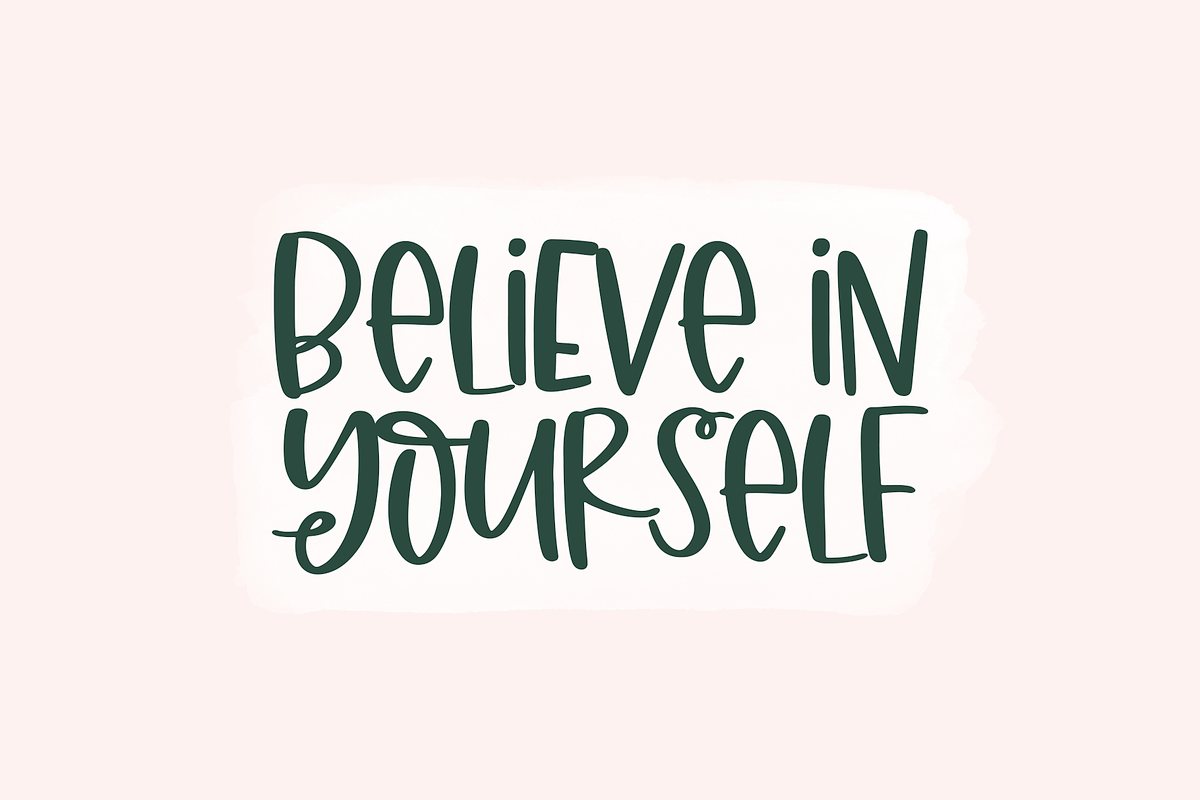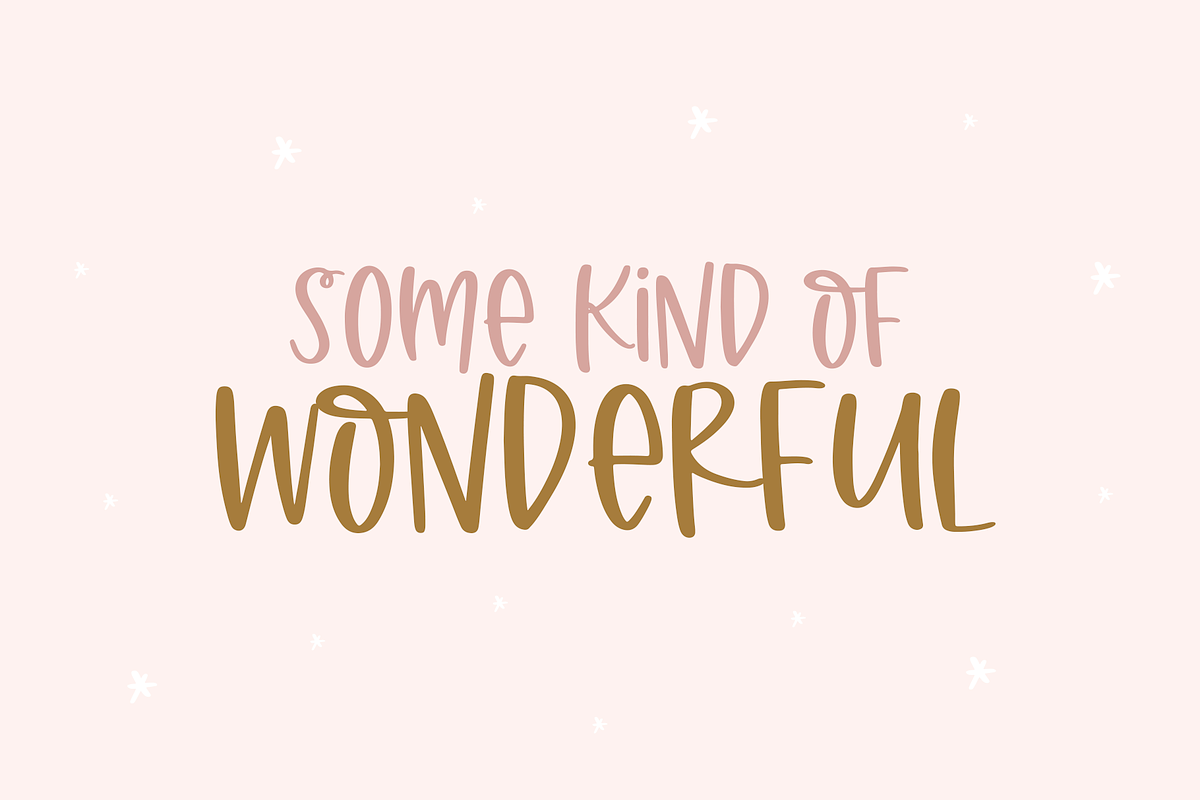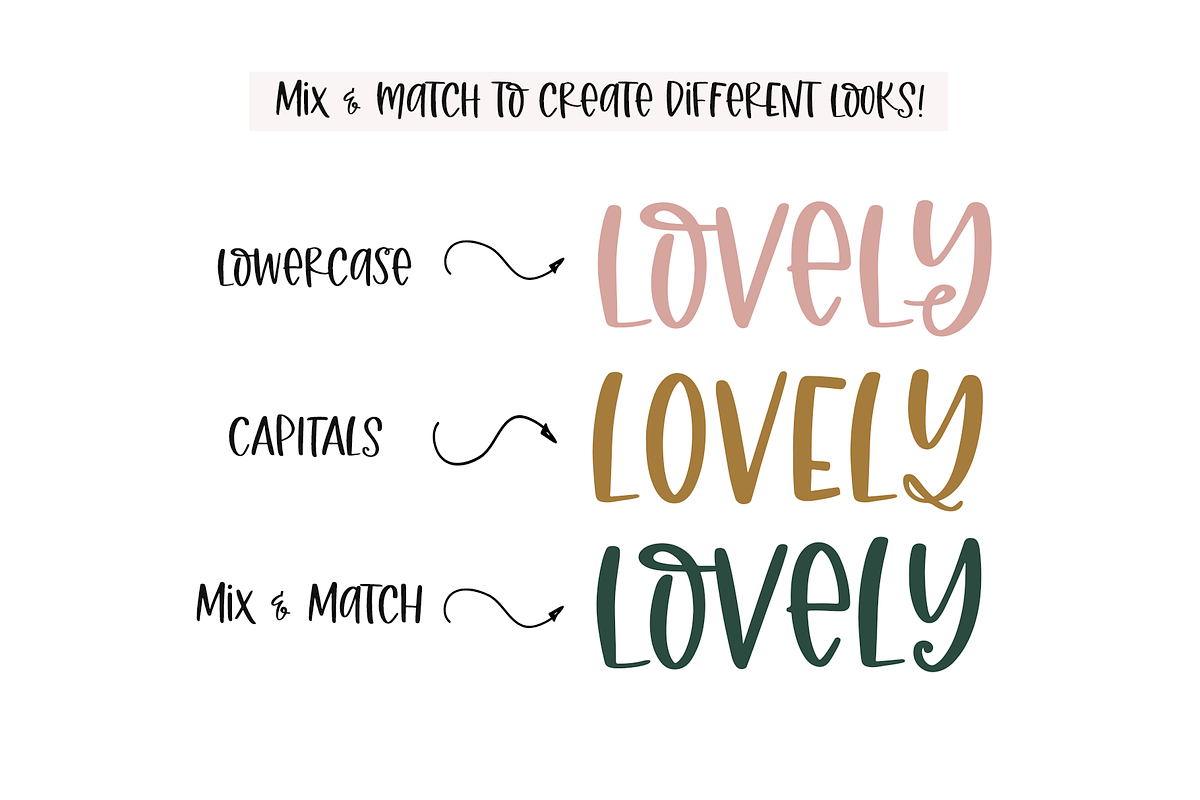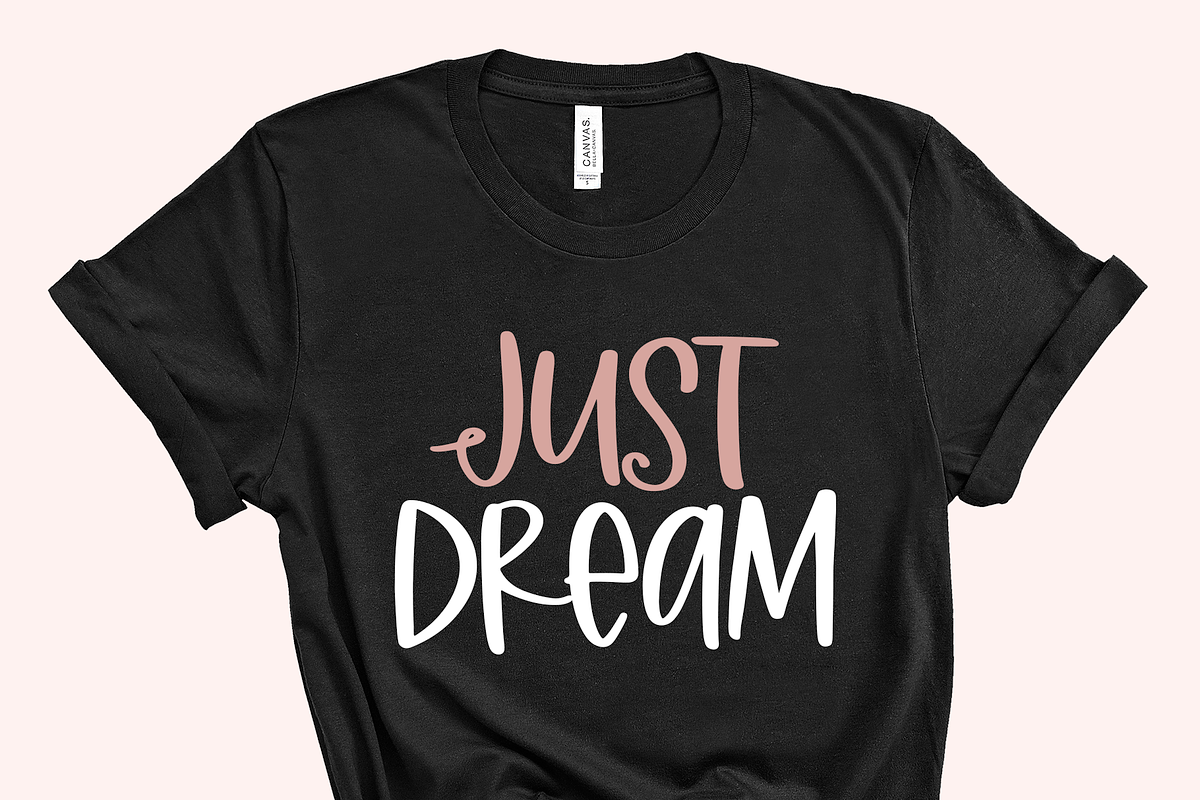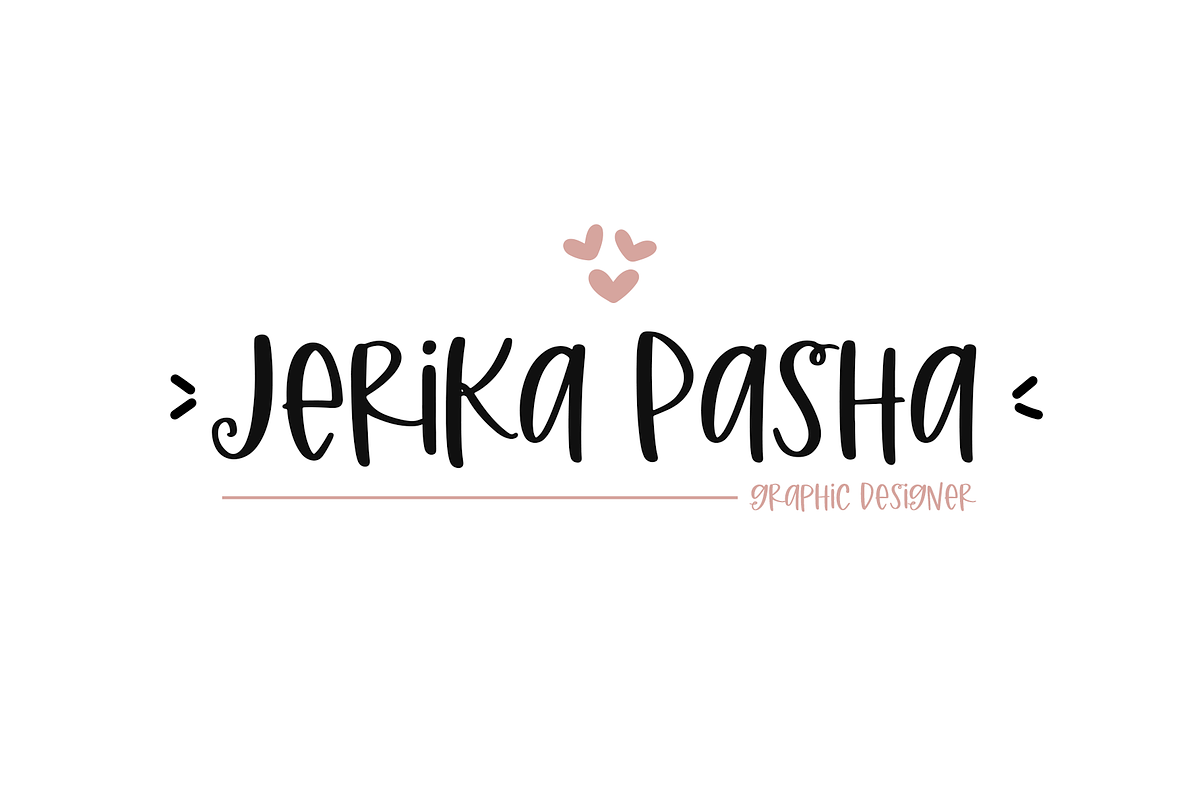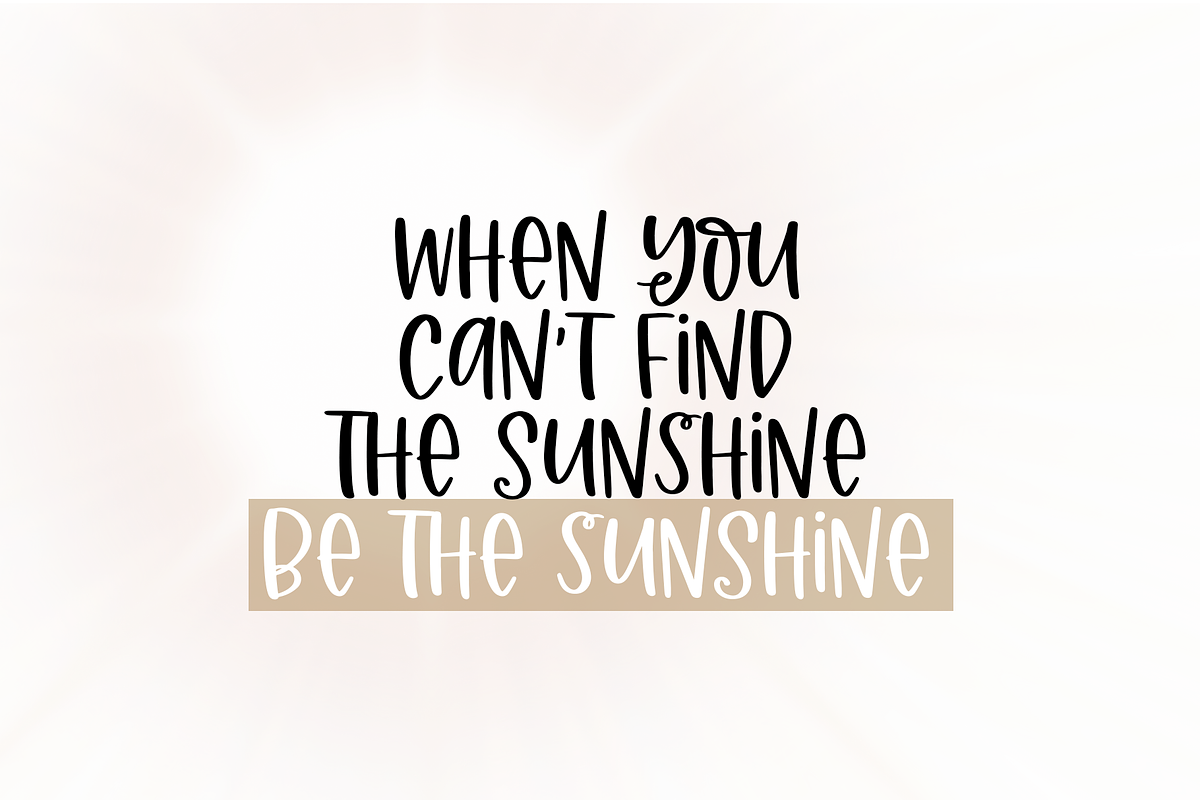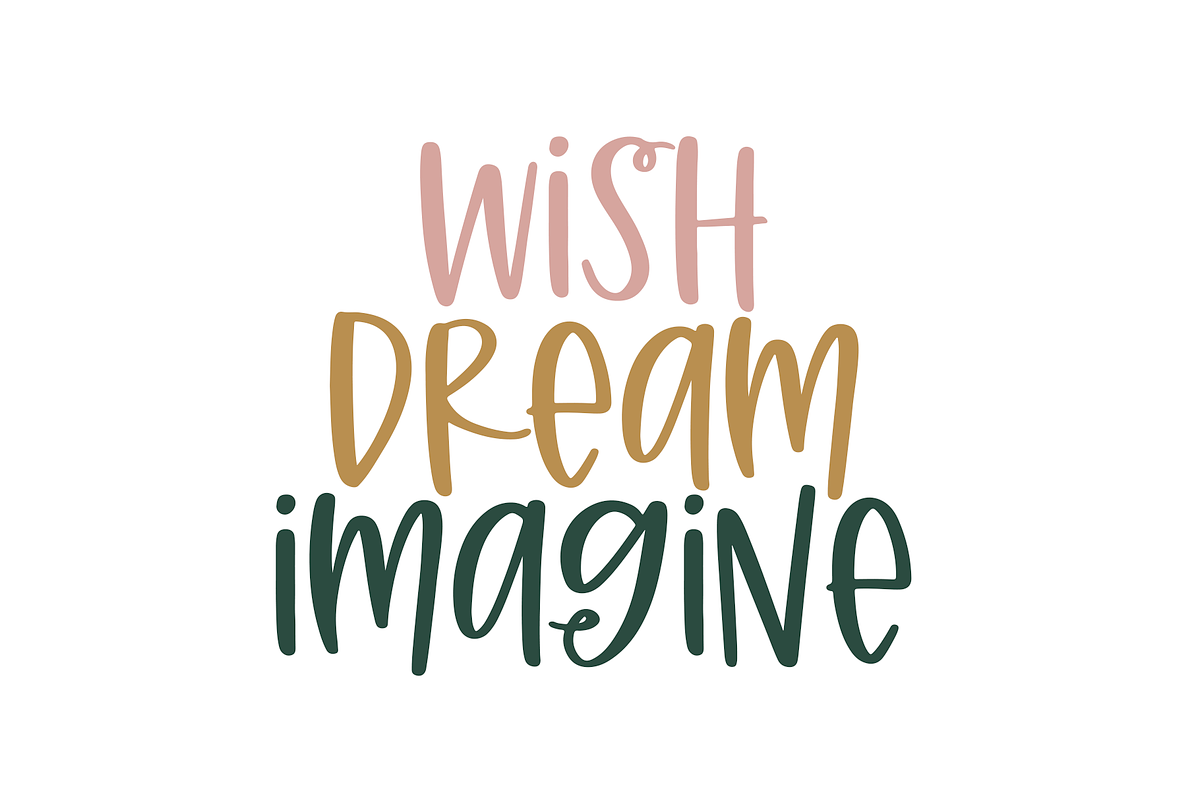
Sunray | Quirky Handwritten Font
Sunray is a quirky handwritten font! This is a mixed case font with both upper and lowercase letters.
This font is perfect for quotes, shirt designs, websites, branding, children's designs, svg designs, blogs, logos, invitations and more!
Sunray | Quirky Handwritten Font by KA Designs fits naturally into Branding, posters, packaging, typography.